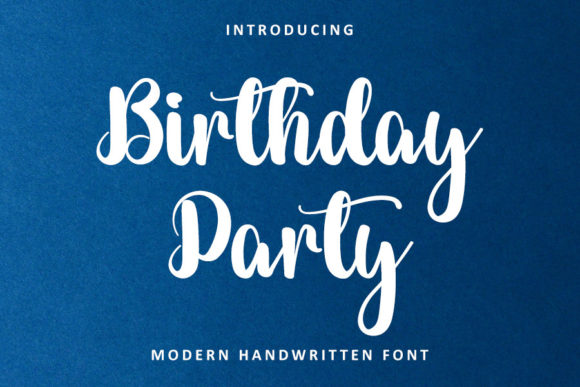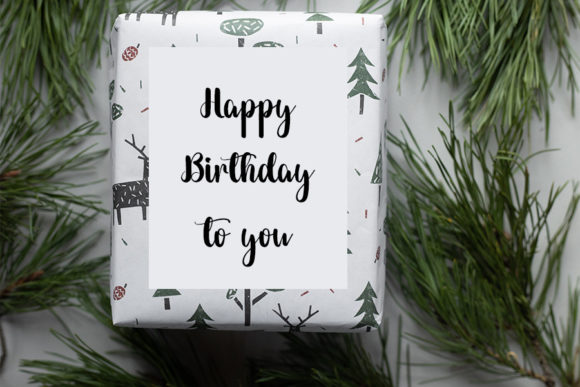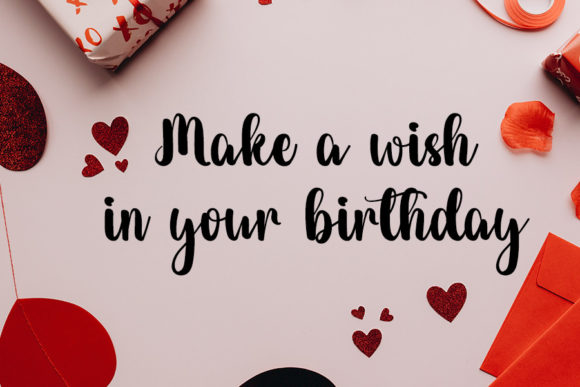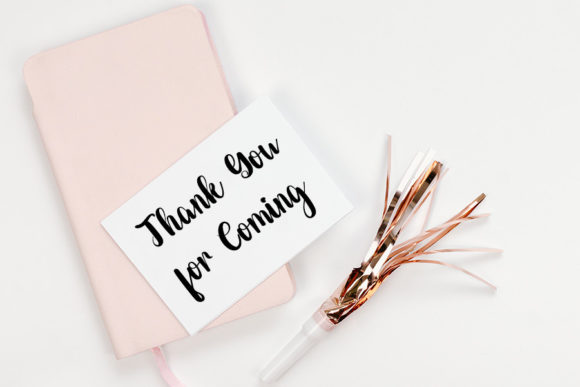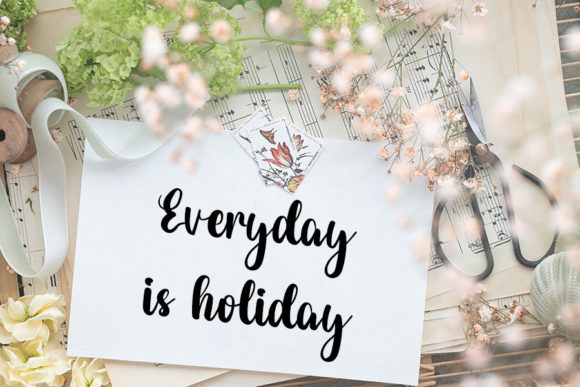
Birthday Party Font
About Birthday Party Font
Birthday Party is a stylish handwritten font characterized by a contemporary atmosphere and impeccable form, drawing inspiration from timeless classic calligraphy. Crafted with a balanced and varied design, this font was intentionally created to elevate the beauty of your projects, adding a touch of style and sophistication.
The contemporary atmosphere of Birthday Party makes it well-suited for a variety of applications, offering a stylish and modern aesthetic. Whether used in birthday invitations, greeting cards, branding, or any creative project, this font contributes to a visually pleasing and sophisticated presentation.
Impeccable form is a key feature of Birthday Party, ensuring that each character is carefully crafted to achieve a harmonious and refined look. The font’s inspiration from timeless classic calligraphy adds a sense of tradition and enduring beauty, making it versatile for both classic and contemporary design contexts.
In birthday invitations and greeting cards, Birthday Party brings a stylish and celebratory flair, setting the tone for a festive occasion. The handwritten charm of the font adds a personal touch, making invitations more memorable and enjoyable.
For branding purposes, Birthday Party adds a touch of elegance to your visual identity. Whether used in logos, packaging, or marketing materials for birthday-themed products, the font’s contemporary yet timeless style enhances the overall brand image.
Creative projects, such as posters or social media graphics, benefit from Birthday Party’s balanced and varied design. The font adapts seamlessly to different themes, creating a visually appealing and harmonious design that captures attention.
In summary, Birthday Party is more than just a font; it’s a stylish handwritten design tool that enhances the beauty of your projects. Whether applied to birthday invitations, branding, or various creative endeavors, Birthday Party brings a touch of timeless classic calligraphy, elevating your designs with sophistication and flair.